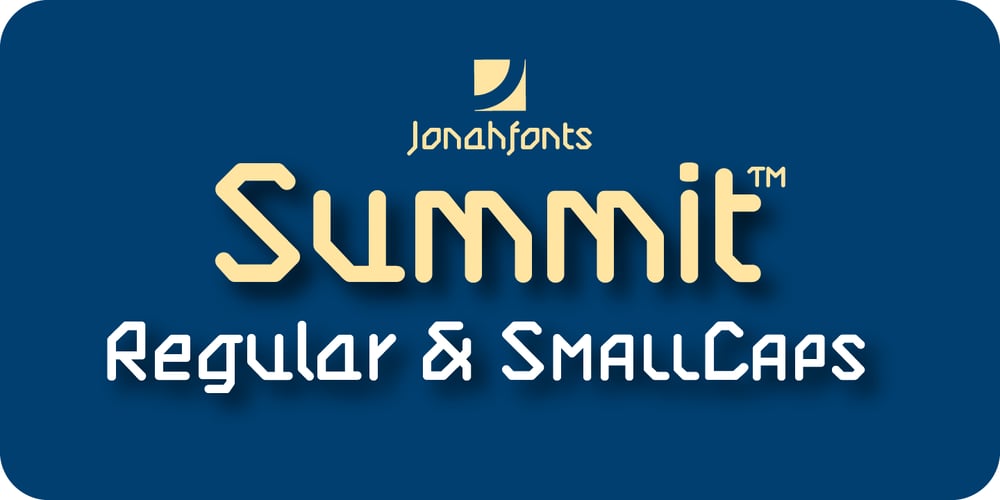
Summit Font Family was designed by published by Jonahfonts. Summit contains 1 styles and family package options. Summit rehashes both Circuitry Fonts, combining them into one font. To further modernize Summit, I have included all the characters required for full character set. Regular with Small Caps. Summit includes all punctuations, numerals, diacritics and special characters. The oringinal Circuitry Font was inspired by the printing on electronic circuit boards, it was interesting that most all printed font-strokes were either 90 or 45 degrees. I have kept most if not all of these angles while simultaneously giving it a contemporary feel.